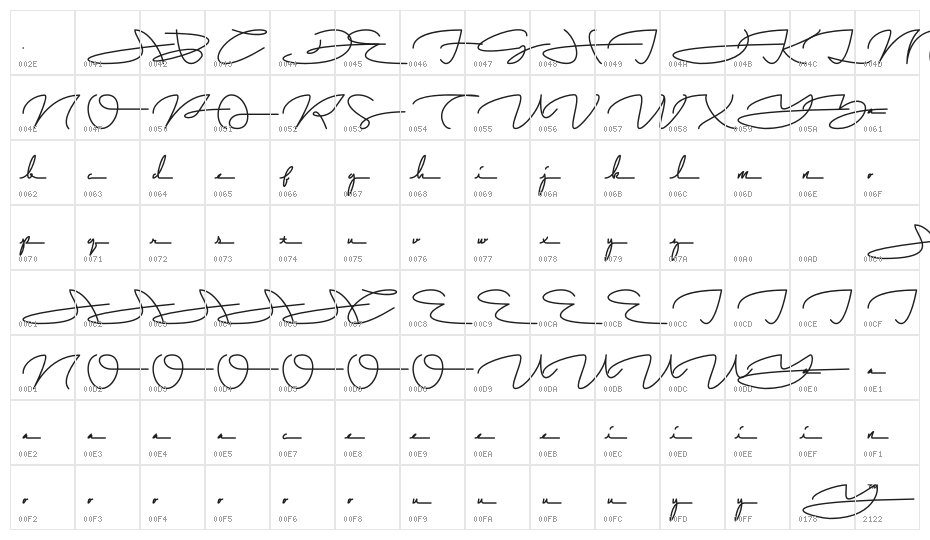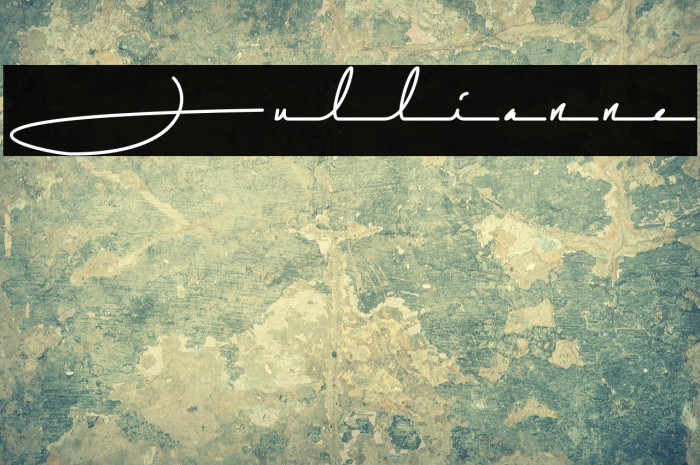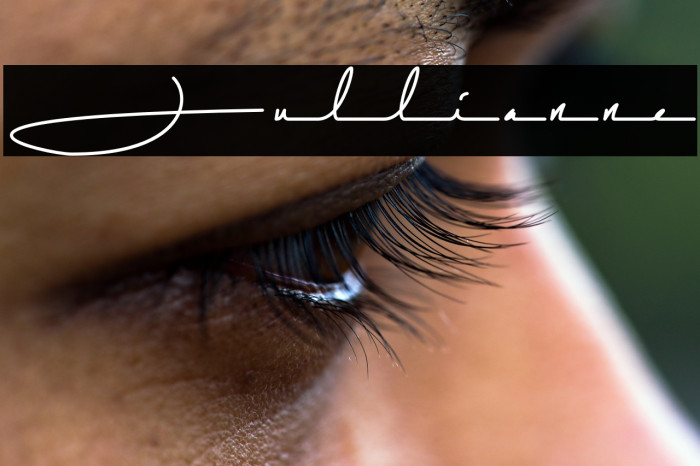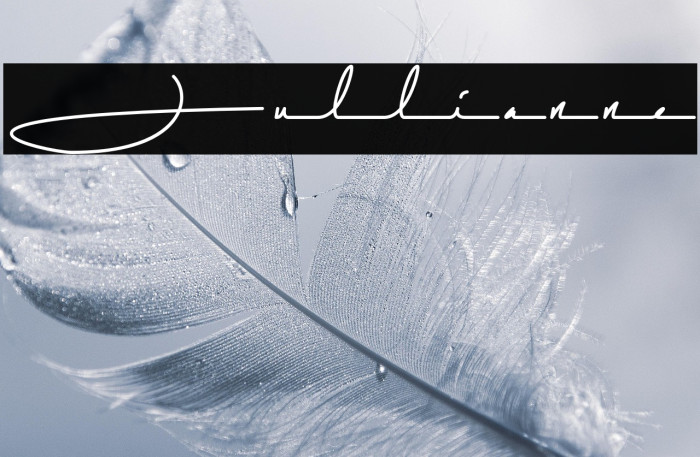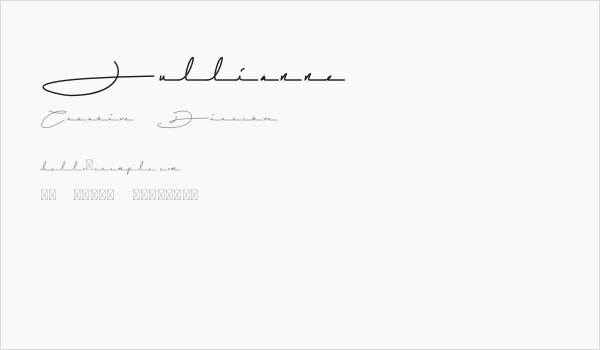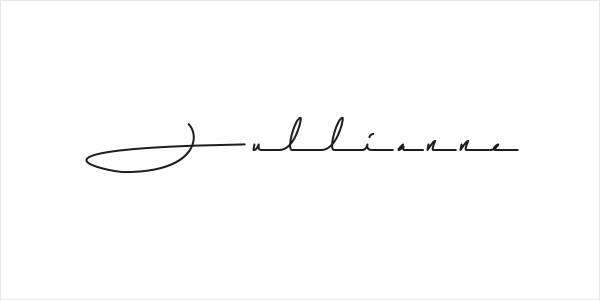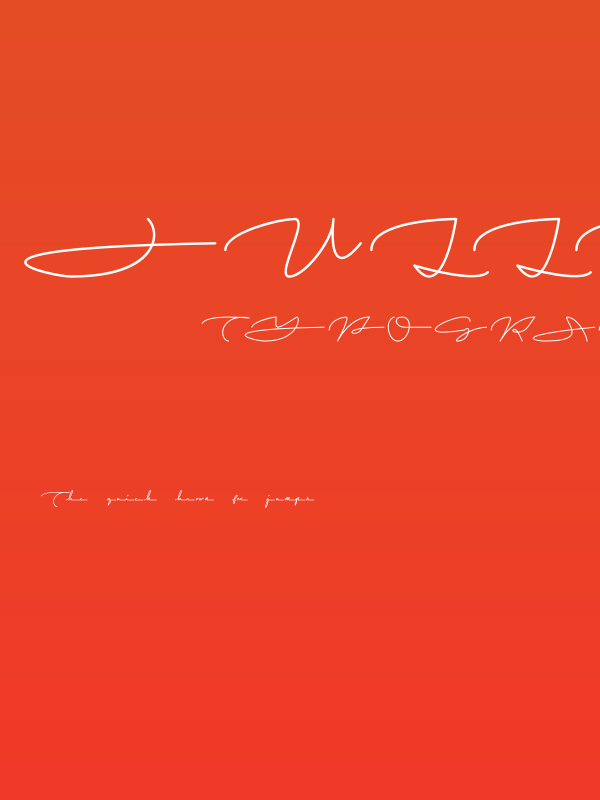
Jullianne Font
Jullianne Description
This elegant script font features a flowing, cursive style with smooth, connected strokes that give it a handwritten appearance. The uppercase letters are slightly more ornate, with subtle flourishes that add a touch of sophistication. The lowercase letters maintain a consistent baseline, enhancing readability while preserving the font's graceful aesthetic. The overall design is delicate yet legible, making it suitable for a variety of applications where a personal touch is desired. The font lacks numerical characters and special symbols, focusing solely on alphabetic characters.
| Use Case | Logos, Invitations, Personal Correspondence |
| Proposed Projects | Ideal for wedding invitations, personal branding, greeting cards, and elegant stationery. |